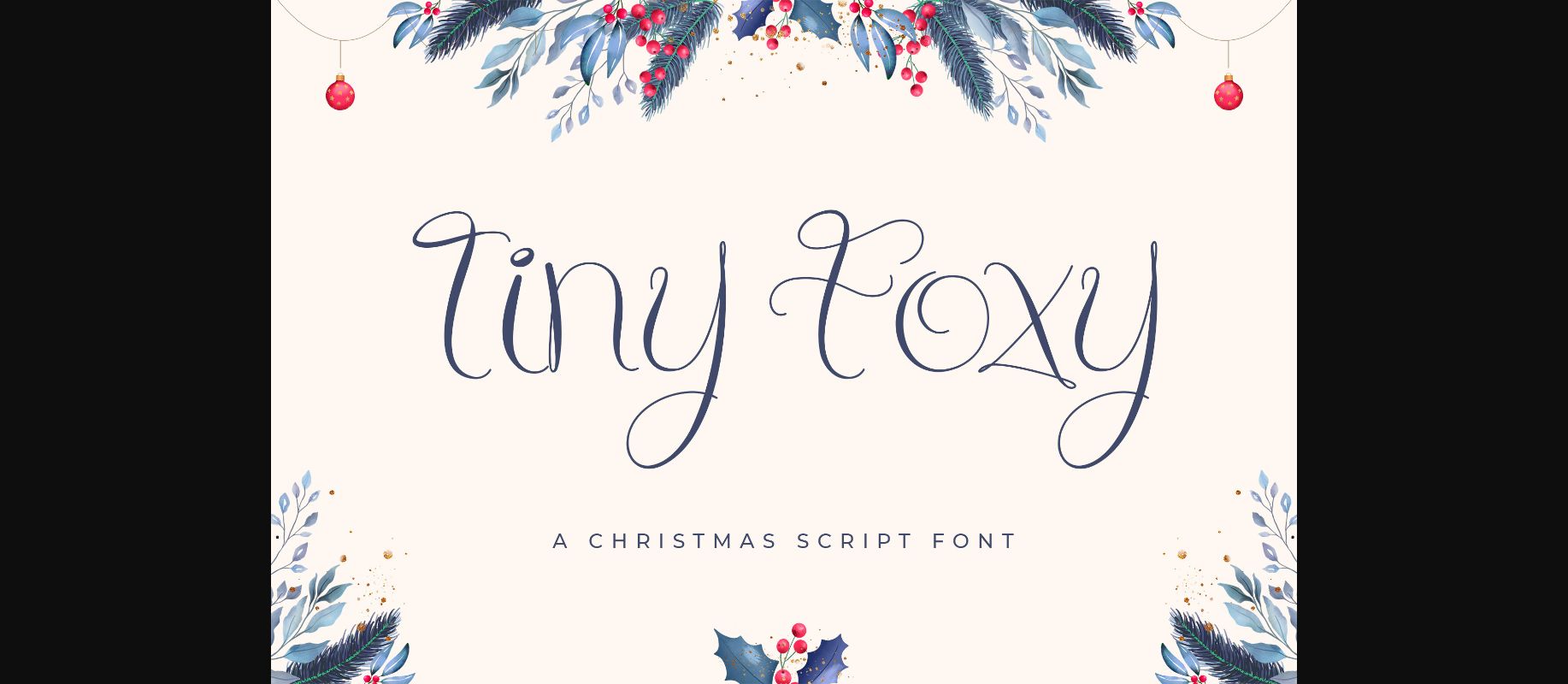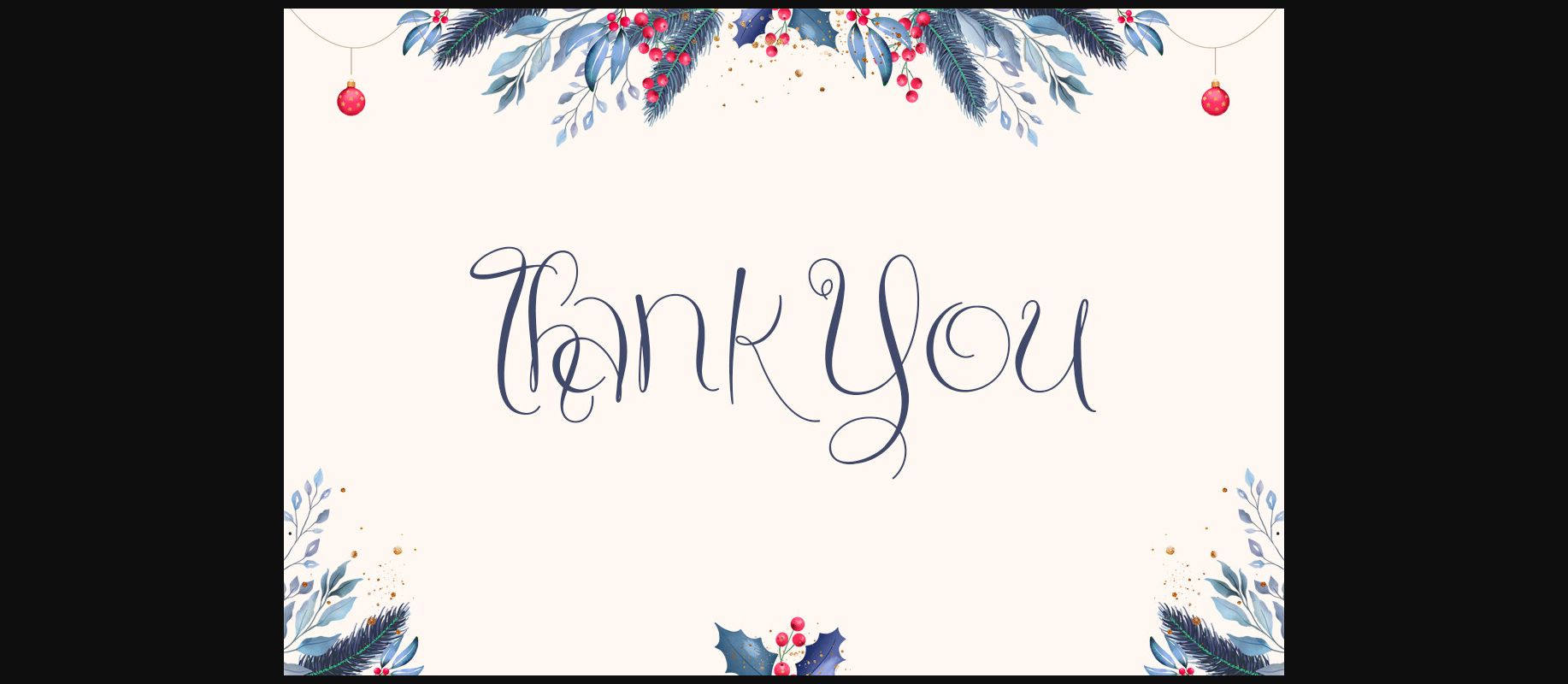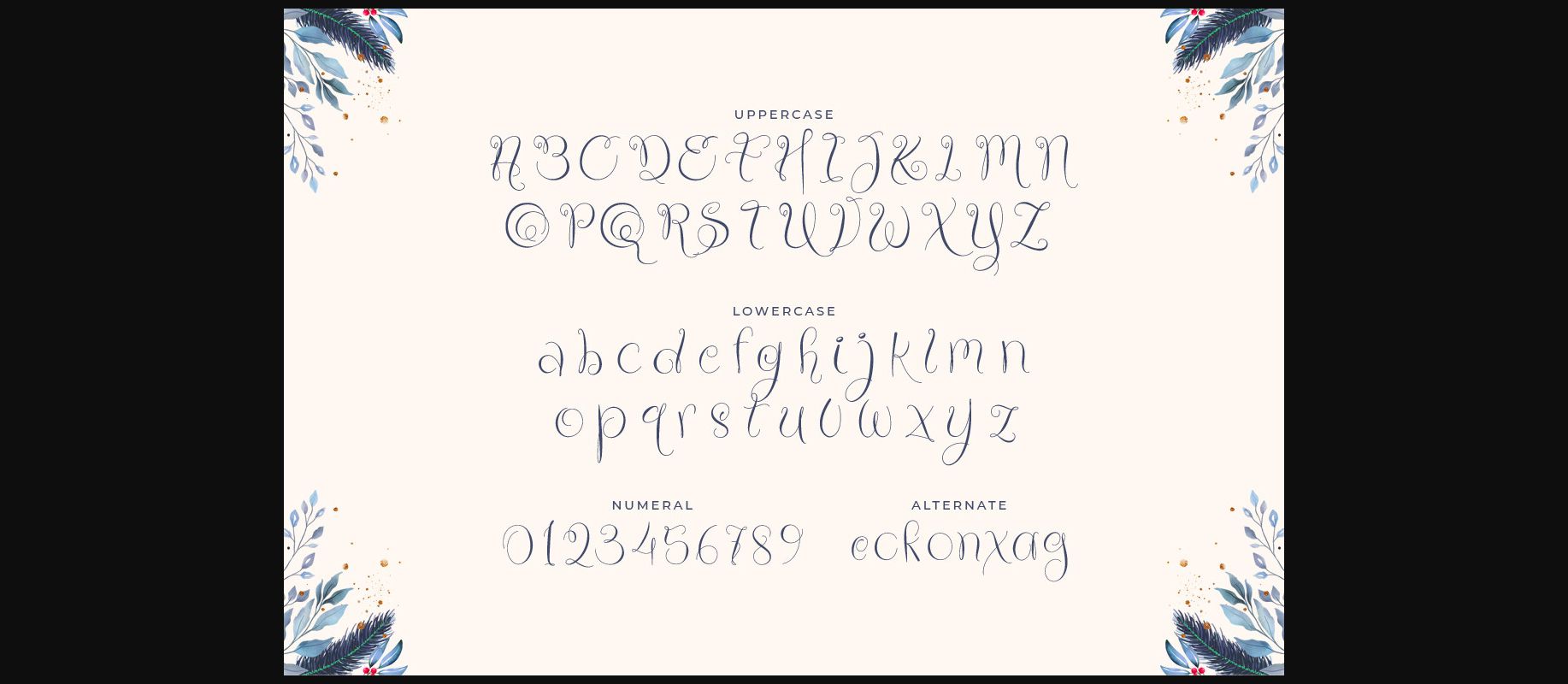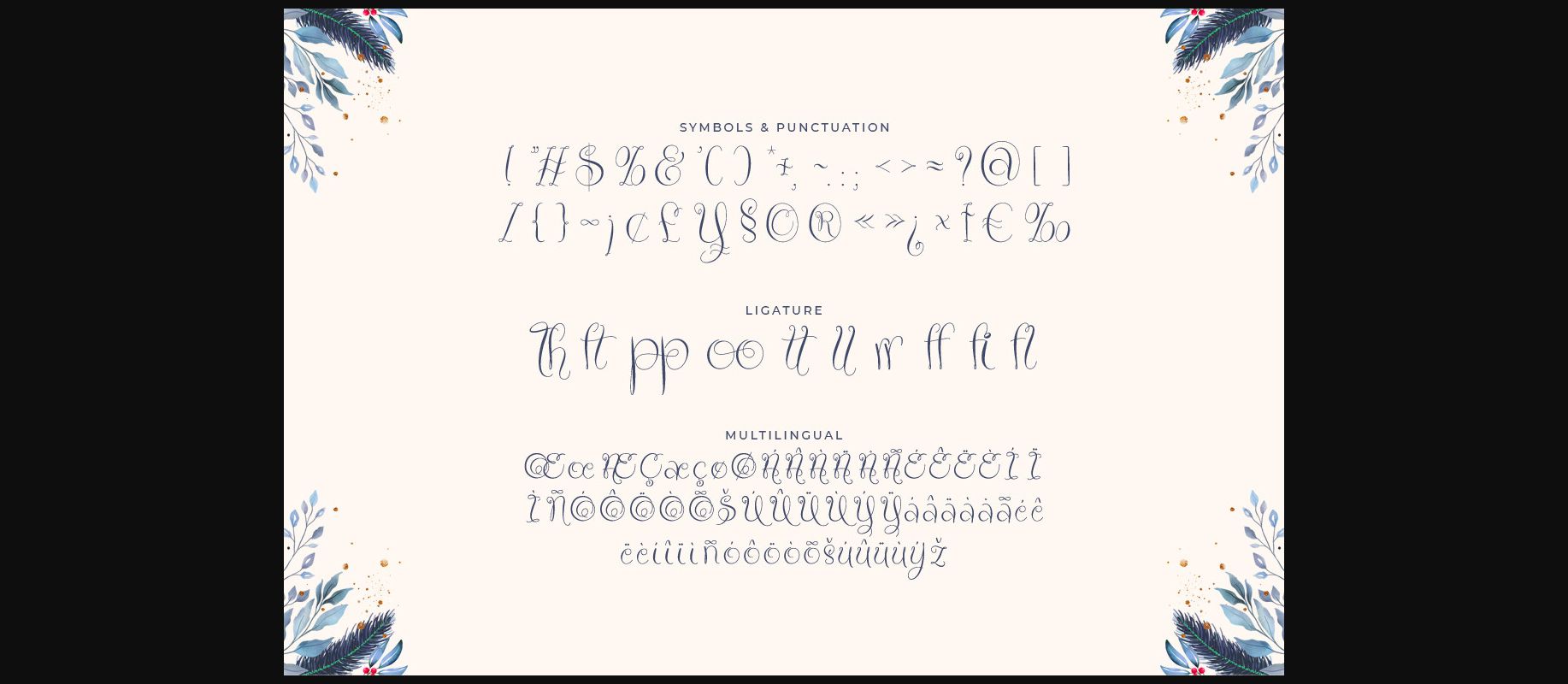
About Tiny Foxy Font
Spread holiday cheer with “Tiny Foxy” – a Christmas script font that brings festive magic to your designs!
With its elegant and playful letterforms, “Tiny Foxy” captures the spirit of the season. Each character is meticulously designed to infuse your projects with holiday joy, making it perfect for seasonal greetings, cozy invitations, holiday-themed branding, and more.
Embrace the enchantment of “Tiny Foxy” as it effortlessly enhances your designs. Whether you’re crafting merry cards, festive event announcements, whimsical gift tags, or joyful social media graphics, this font will captivate your audience with its Christmas-inspired style.
Step into a world of holiday delight with “Tiny Foxy” and let your designs shimmer with festive magic!
With its elegant and playful letterforms, “Tiny Foxy” captures the spirit of the season. Each character is meticulously designed to infuse your projects with holiday joy, making it perfect for seasonal greetings, cozy invitations, holiday-themed branding, and more.
Embrace the enchantment of “Tiny Foxy” as it effortlessly enhances your designs. Whether you’re crafting merry cards, festive event announcements, whimsical gift tags, or joyful social media graphics, this font will captivate your audience with its Christmas-inspired style.
Step into a world of holiday delight with “Tiny Foxy” and let your designs shimmer with festive magic!